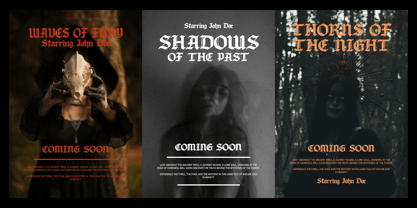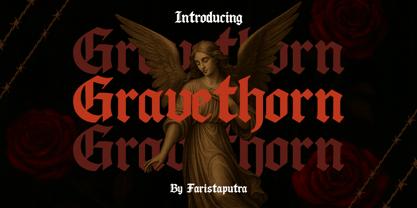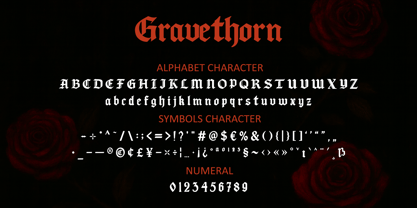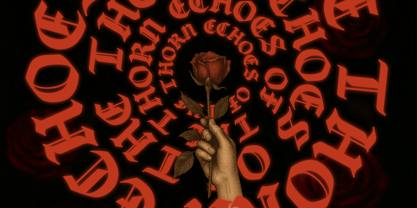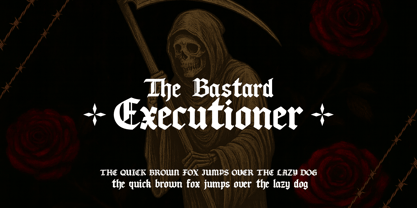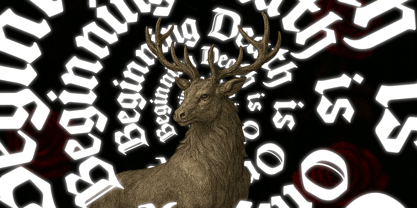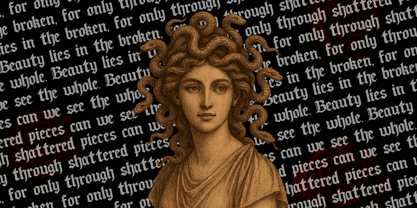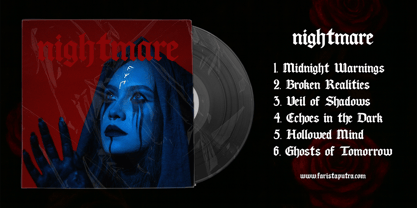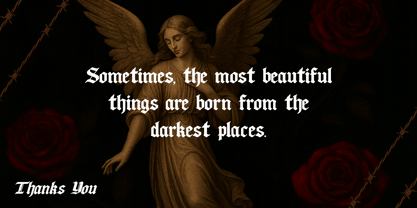
FA Gravethorn
by Faristaputra
The FA Gravethorn Font Family was designed by Frederik Aristaputra and published by Faristaputra. FA Gravethorn contains 2 styles and family package options.
Gravethorn is an elegant yet bold font family, designed to stand out in any project. Featuring both Regular and Italic styles, this typeface combines gothic influences with modern sensibilities, making it perfect for branding, headers, posters, and other high-impact designs. Its striking, angular letterforms are ideal for projects that need a touch of sophistication and drama, with a hint of historical charm.
Designers: Frederik Aristaputra
Publisher: Faristaputra
Foundry: Faristaputra
Design Owner: Faristaputra